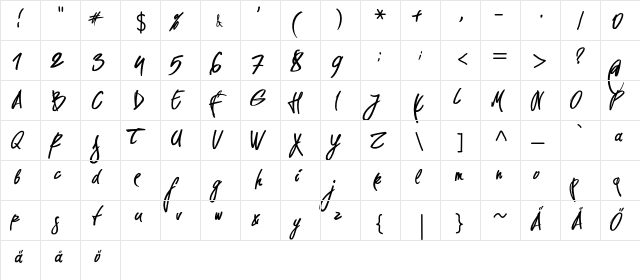
rokasfreestyle1 Regular
Design Context for rokasfreestyle1 Typeface
rokasfreestyle1 is a composed and adaptable typeface that performs quietly and consistently across a wide range of design contexts.